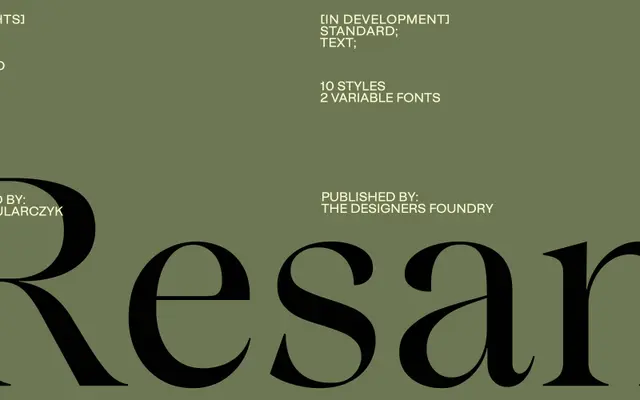
Resan
A display serif by Karol Mularczyk drawing on transitional type from the 17th and 18th centuries, offered in five weights with matching italics and variable font support.
Informed by the organic warmth of transitional serifs, the design pairs sharp rhythm and generous proportions with finely cut details suited to display sizes. An alternative terminals feature allows the terminal shapes to be swapped, meaningfully shifting the overall mood of the type. The family is presented as the first chapter of a broader Resan superfamily, with additional optical weights in development.
The designer explicitly cites transitional types of the 17th and early 18th centuries as the primary influence, with sharp rhythm, generous proportions and finely cut details characteristic of that period.